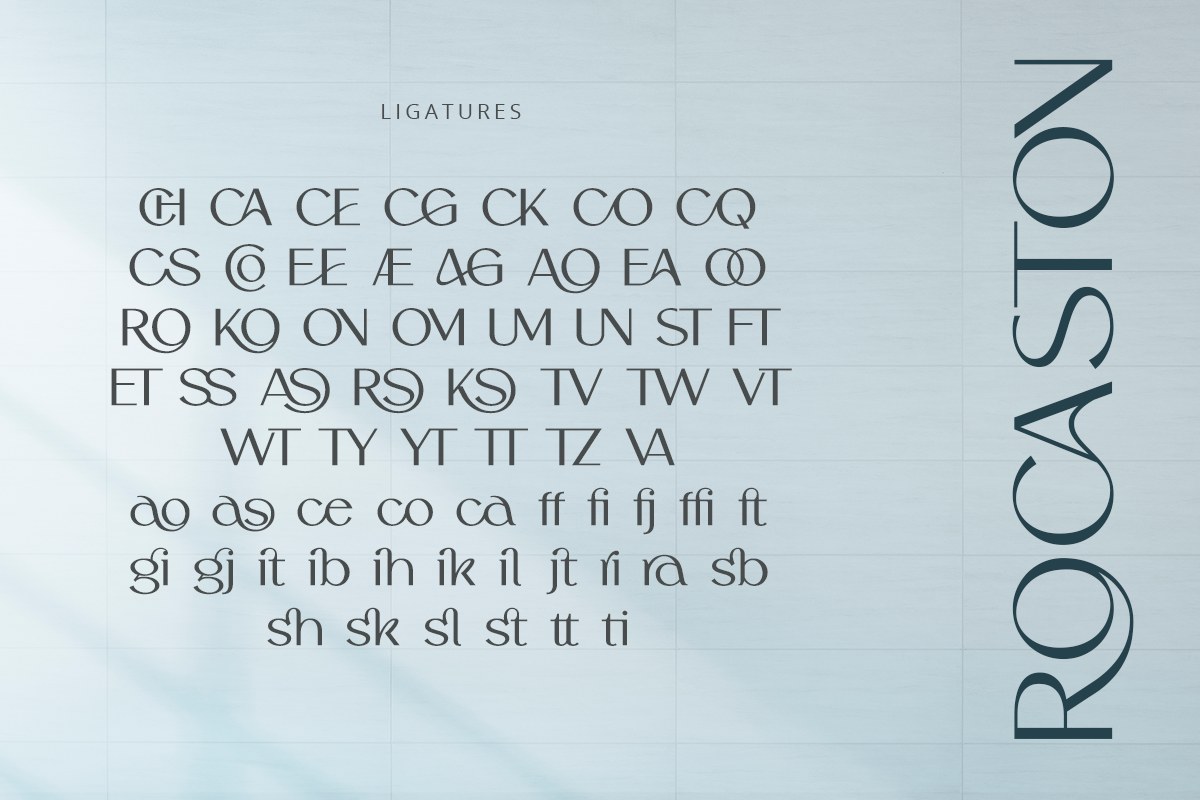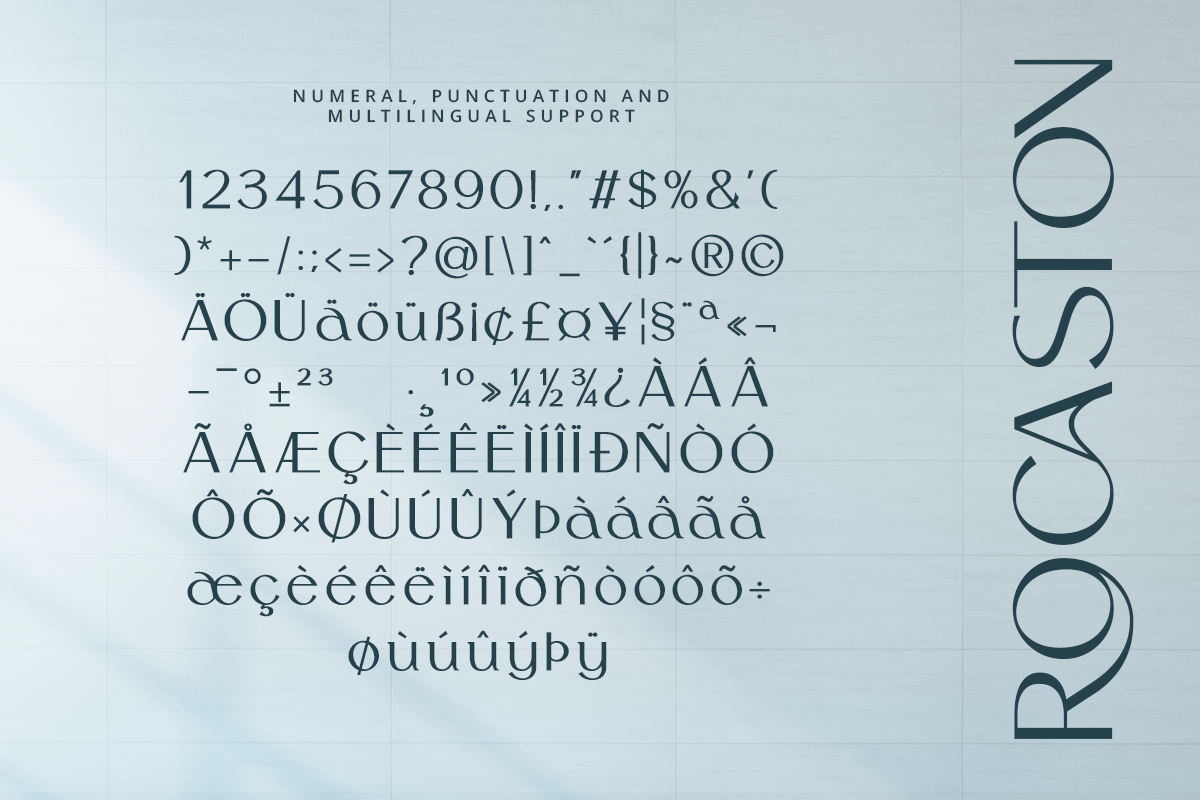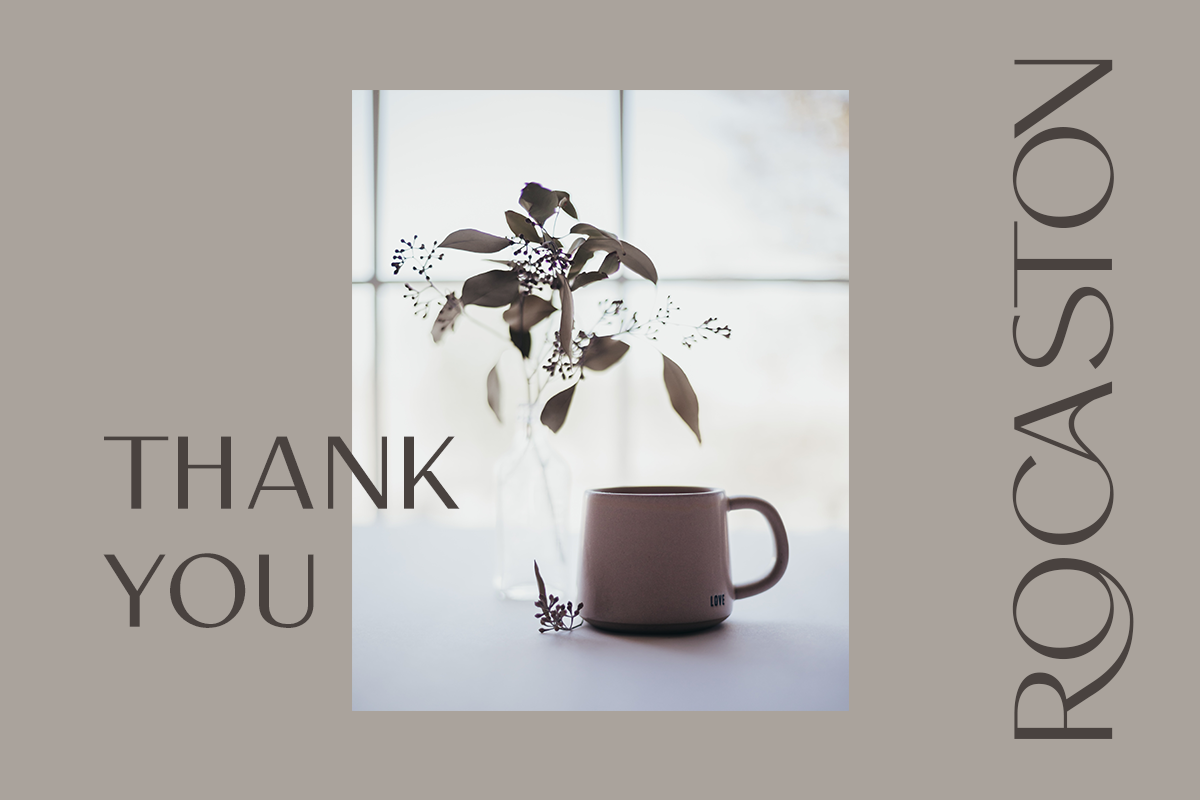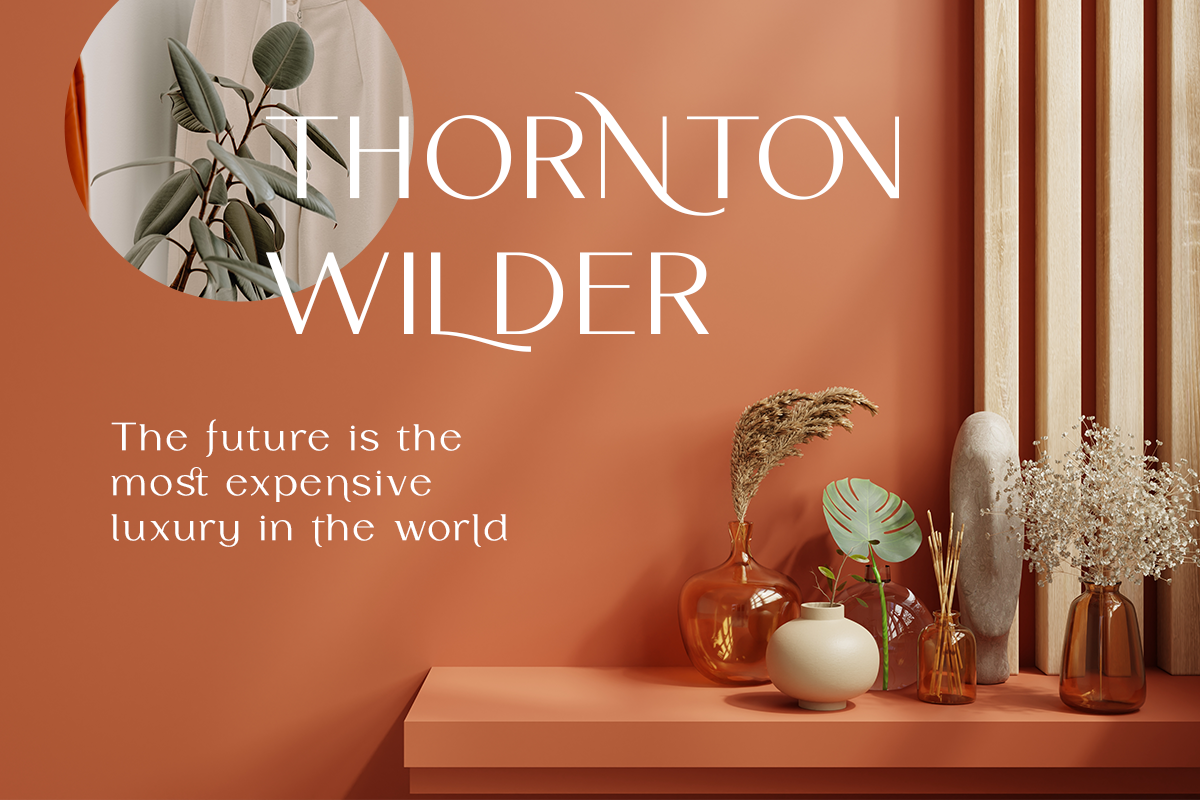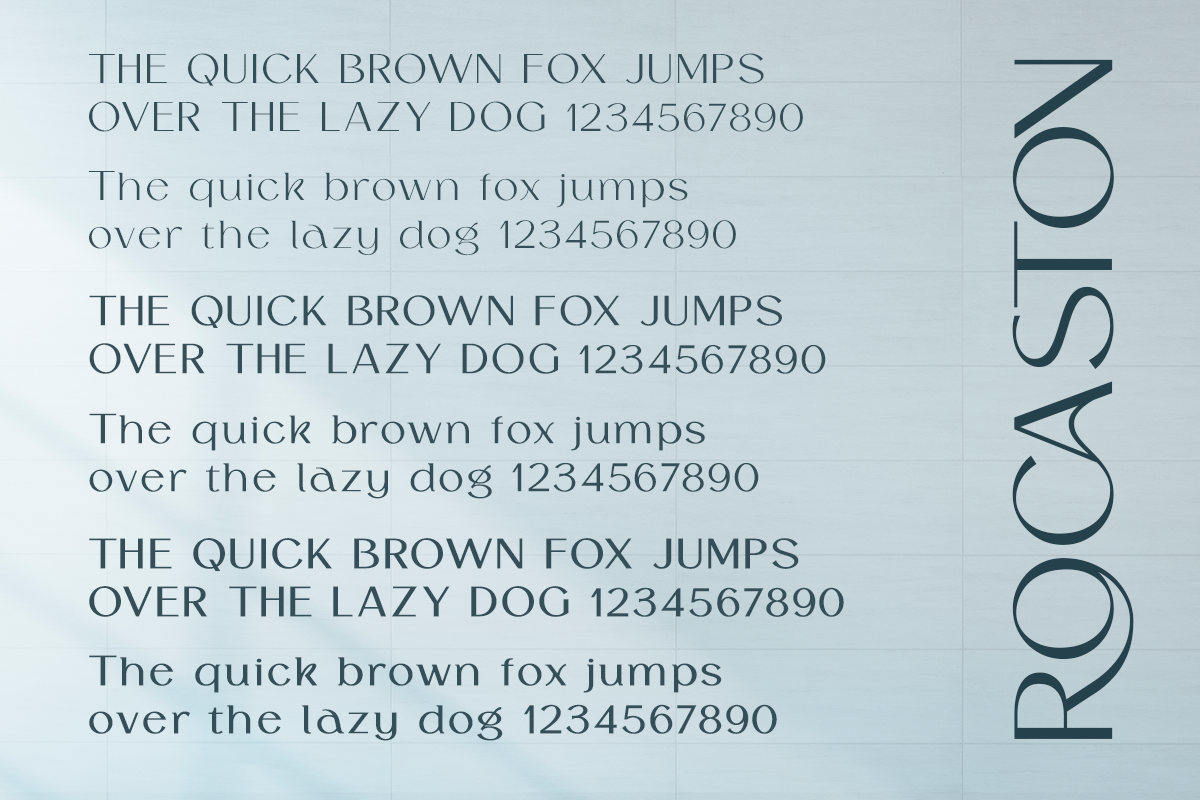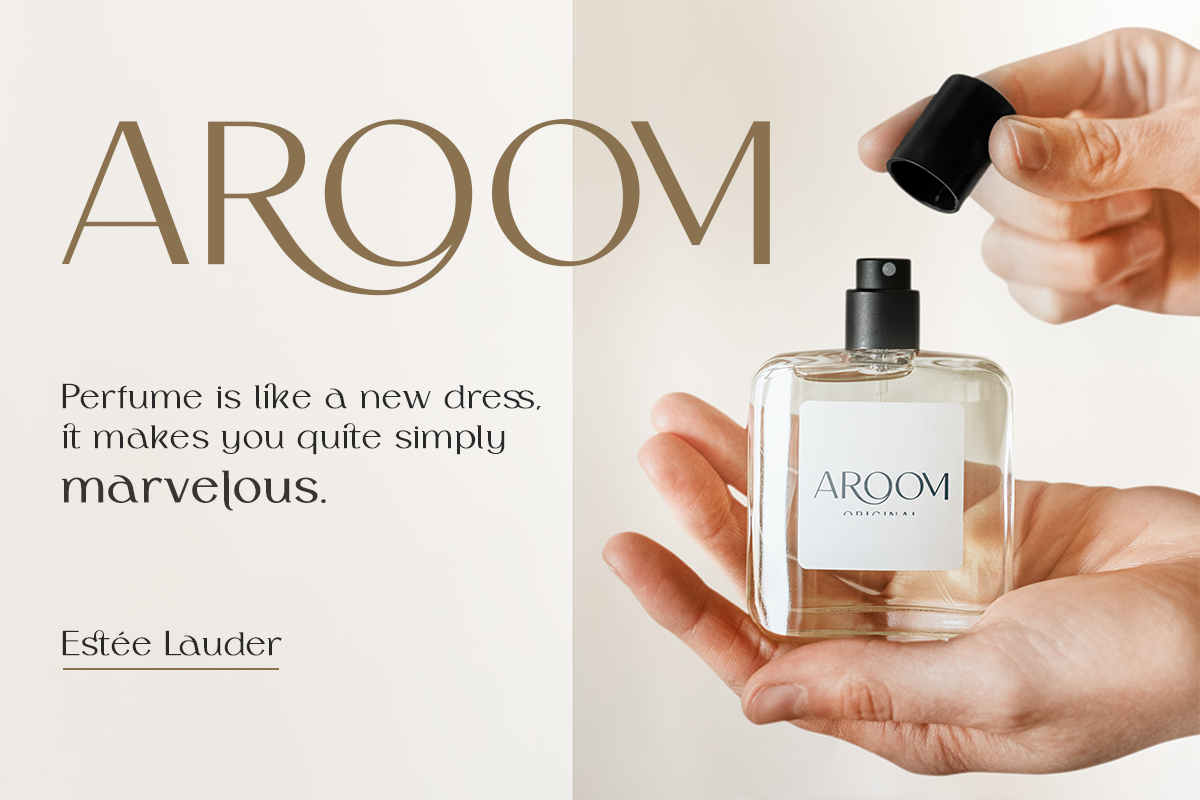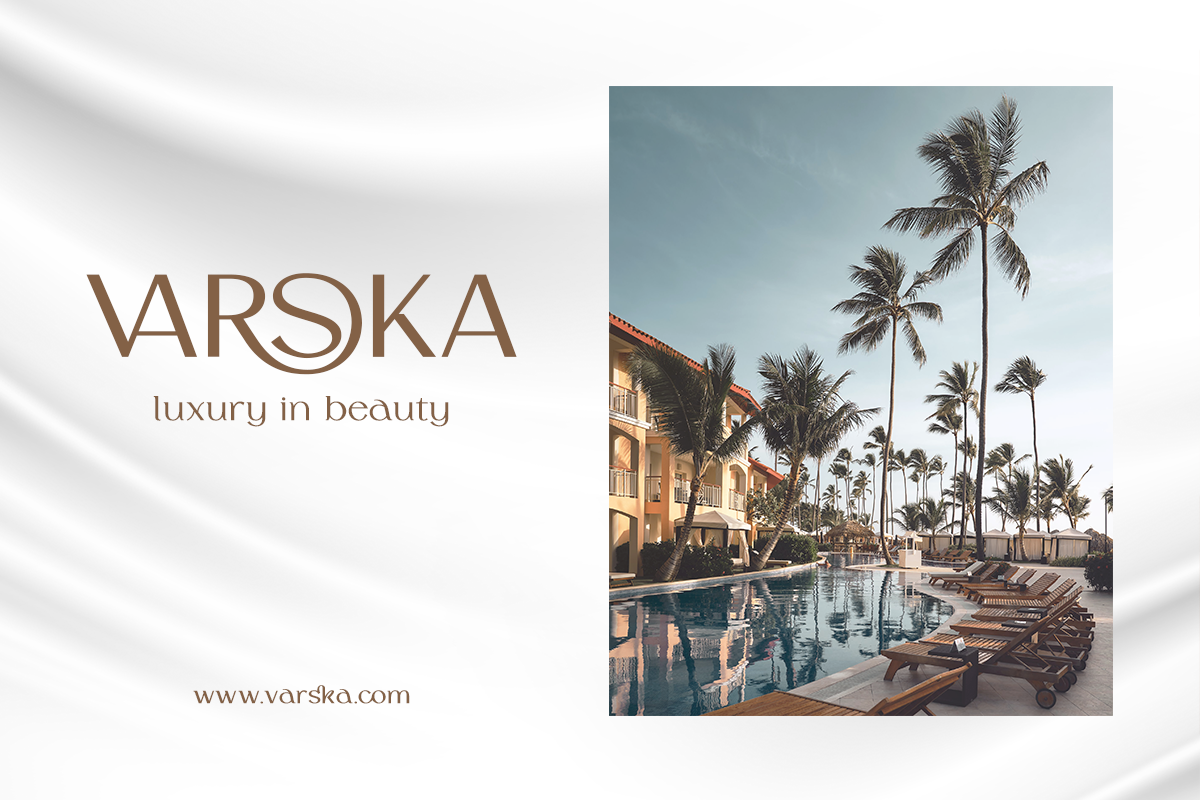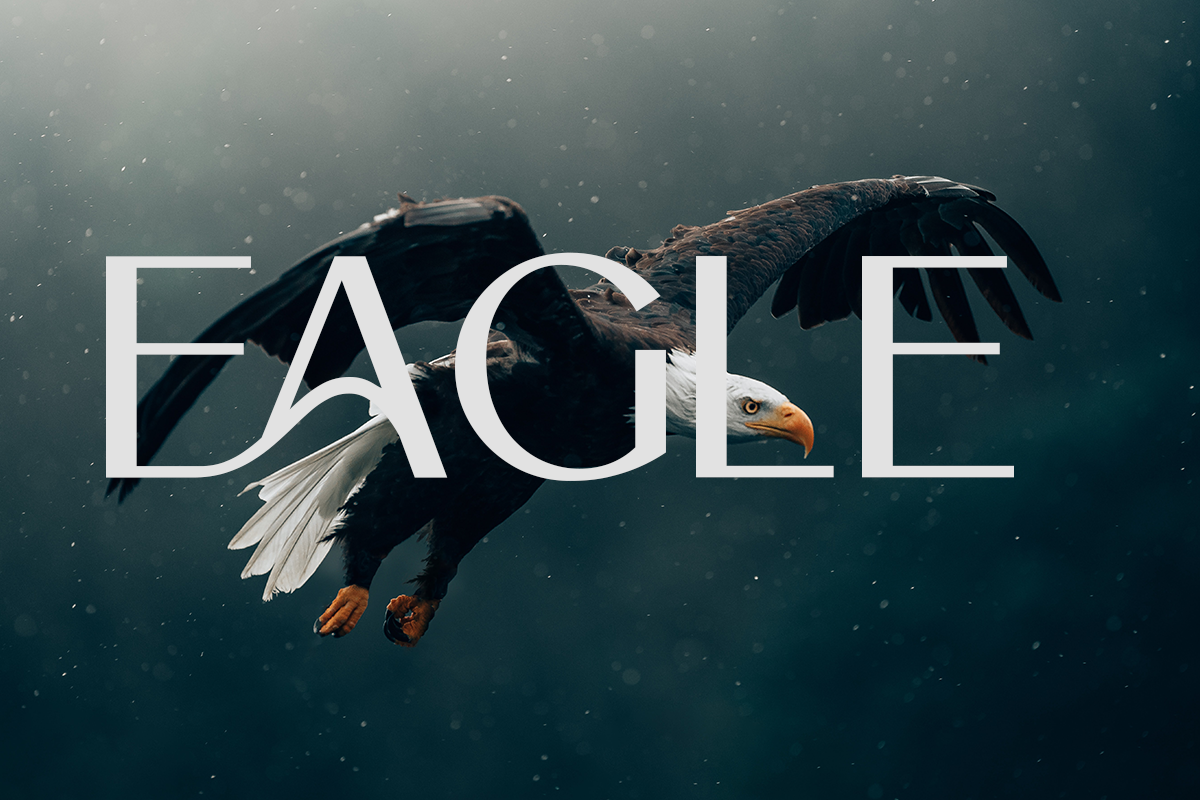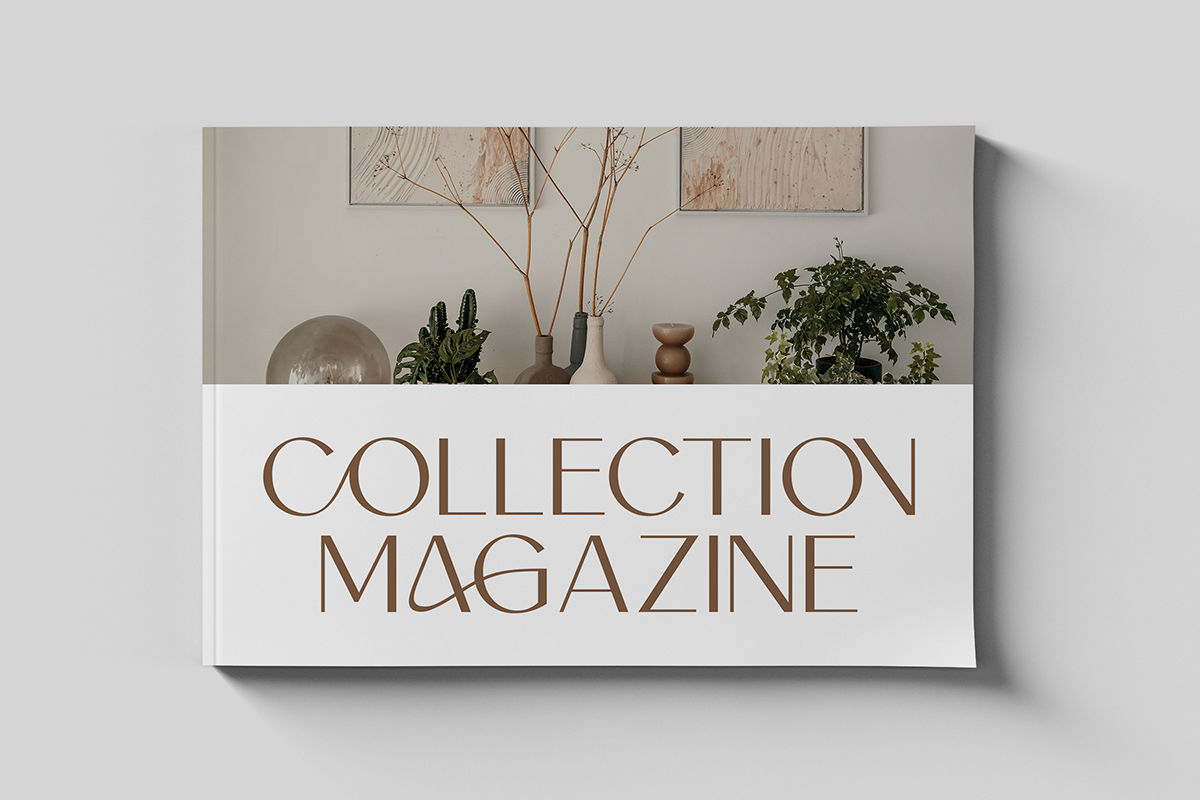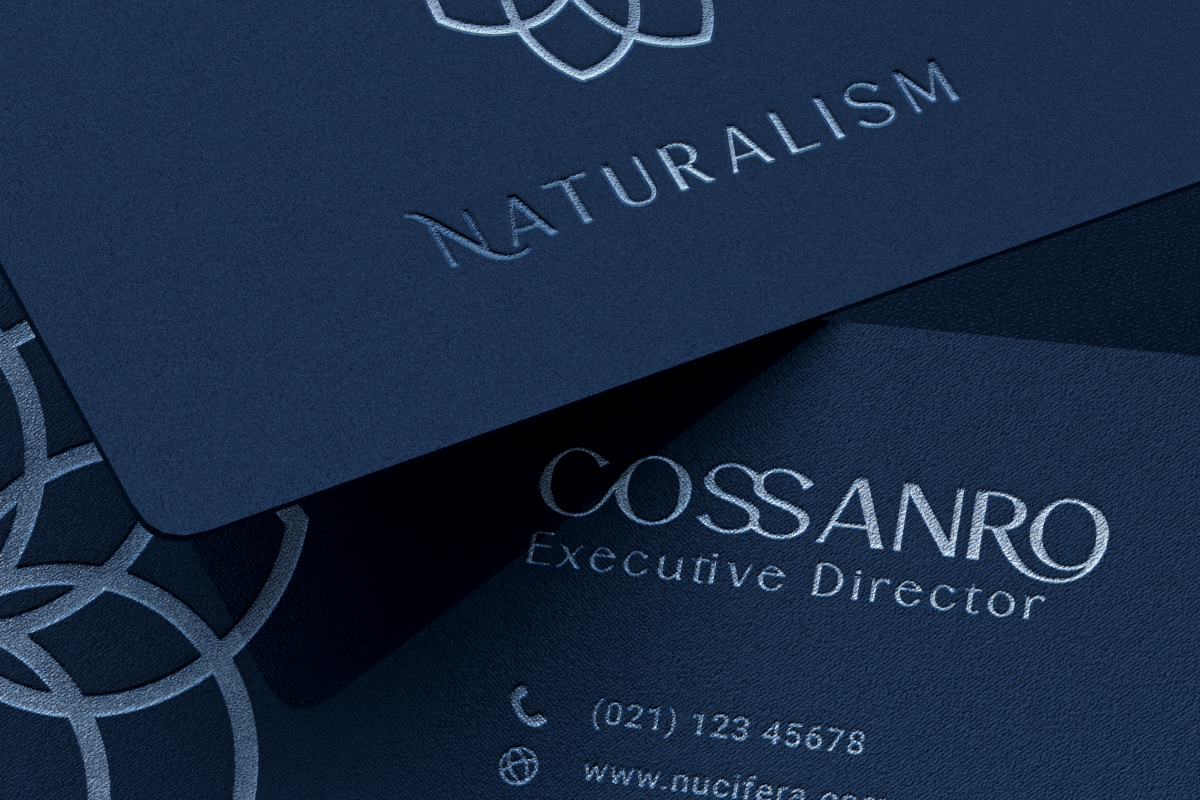
Rocaston Decorative Sans Serif Font Rocaston Decorative Sans Serif font is one of our Sans Serif fonts. If you want a sans-serif font that is legible and easy to work with, you should consider choosing Roaston font for your project. The Roaston Decorative font is a clean and simple font with a very minimalistic style. This font is modern fonts and bold fonts. You can use this font as a digital font and print fonts, such as for magazines, posters, and flyers. You can also use Roaston Decorative font for branding purposes, such as creating a logo or tagline for a brand, brand packaging, and brand advertising. Some examples of products include; business cards, invitations, and placemarks. Make sure the font size must be considered in its application. Rocaston Decorative Sans Serif font makes a simple and elegant impression when you see it. There is no doubt that this font is suitable for various social media platforms. Our Sans Serif fonts collection is compatible for use as Figma fonts, Canva fonts, Freepik Fonts, and Adobe Fonts. They also work as Windows Fonts, and Apple Fonts. For your social media needs, you can use and install fonts in our Sans Serif font collection to use as Instagram Fonts, Facebook Fonts, and Twitter Fonts.